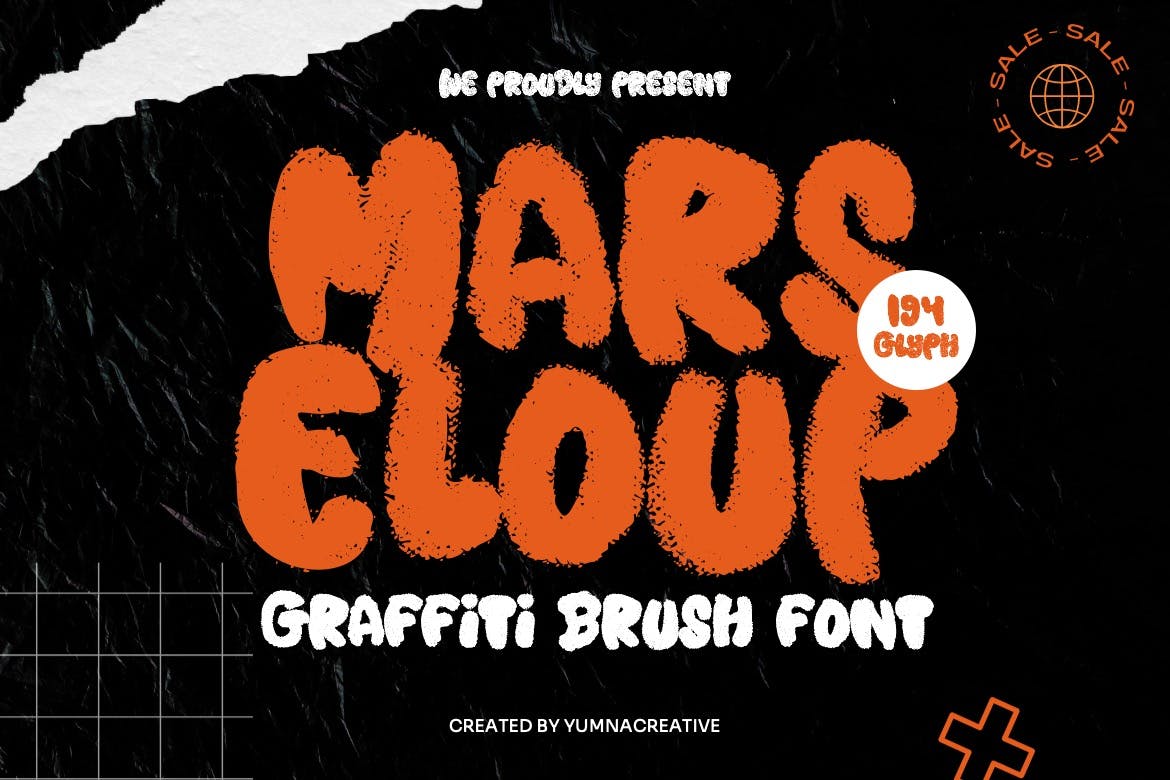
Marseloup - Graffiti Brush Font
Marseloup - Graffiti Brush Font prowls across urban street art exhibitions, wild hip-hop album covers, fierce streetwear designs, underground music venue signage, rebellious youth brand campaigns, urban fashion collections, street culture festivals, graffiti art galleries, pack mentality marketing materials, urban lifestyle magazines, street art workshops, and predatory competitive branding where pack hunting instincts and urban brush artistry create powerful territorial statements.
This fierce typeface generates excitement through its perfect fusion of predatory instincts and urban street culture that creates typography embodying the raw power of pack dynamics and territorial street art expression. Marseloup - Graffiti Brush Font captures the essence of urban predation with its aggressively flowing brush strokes that suggest the swift movements of hunting packs and the territorial marking behavior found in both wildlife and street culture. The font's primal design approach incorporates elements that evoke pack coordination, territorial dominance, and the instinctive survival strategies that define both natural predators and urban street artists claiming their creative territory.
The Marseloup - Graffiti Brush Font family encompasses multiple predatory variations including Regular, Bold, Light, Wild, and Pack versions, each maintaining the font's characteristic urban ferocity while offering different levels of territorial impact. The collection features aggressive brush textures, pack-inspired effects, and predatory styling that enhance its street credibility. Additional elements include territorial symbols, pack ornaments, urban decorative borders, and fierce flourishes that reinforce the font's connection to street art culture and predatory urban aesthetics.
Street culture brands and urban artists consistently select Marseloup - Graffiti Brush Font Free Download for projects requiring typography that communicates pack strength and territorial urban authenticity. This remarkable typeface excels in applications where establishing street credibility and conveying primal urban energy are essential for cultural dominance. The font's predatory qualities make it particularly effective for streetwear brands, urban music labels, and street culture organizations targeting audiences who appreciate pack dynamics and territorial artistic expression.
Whether you're designing urban streetwear collections, creating street art exhibitions, developing pack-mentality marketing campaigns, or crafting territorial brand communications, Marseloup - Graffiti Brush Font delivers unmatched urban predatory authenticity. Its ability to convey pack strength, territorial dominance, and urban survival instincts makes it invaluable for street culture creators seeking typography that genuinely embodies the fierce competition of urban artistic territories. The font's predatory presence ensures your designs will communicate the pack coordination and territorial strength that define exceptional street culture communications and urban artistic dominance.